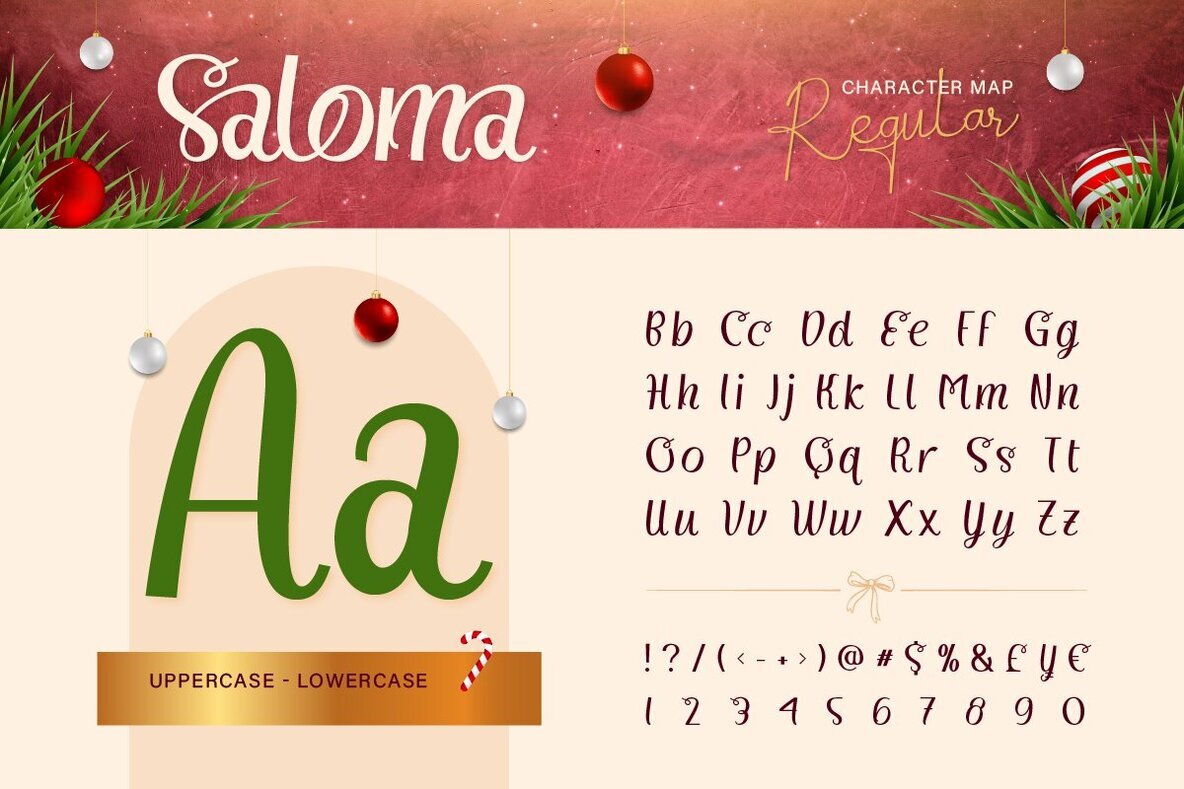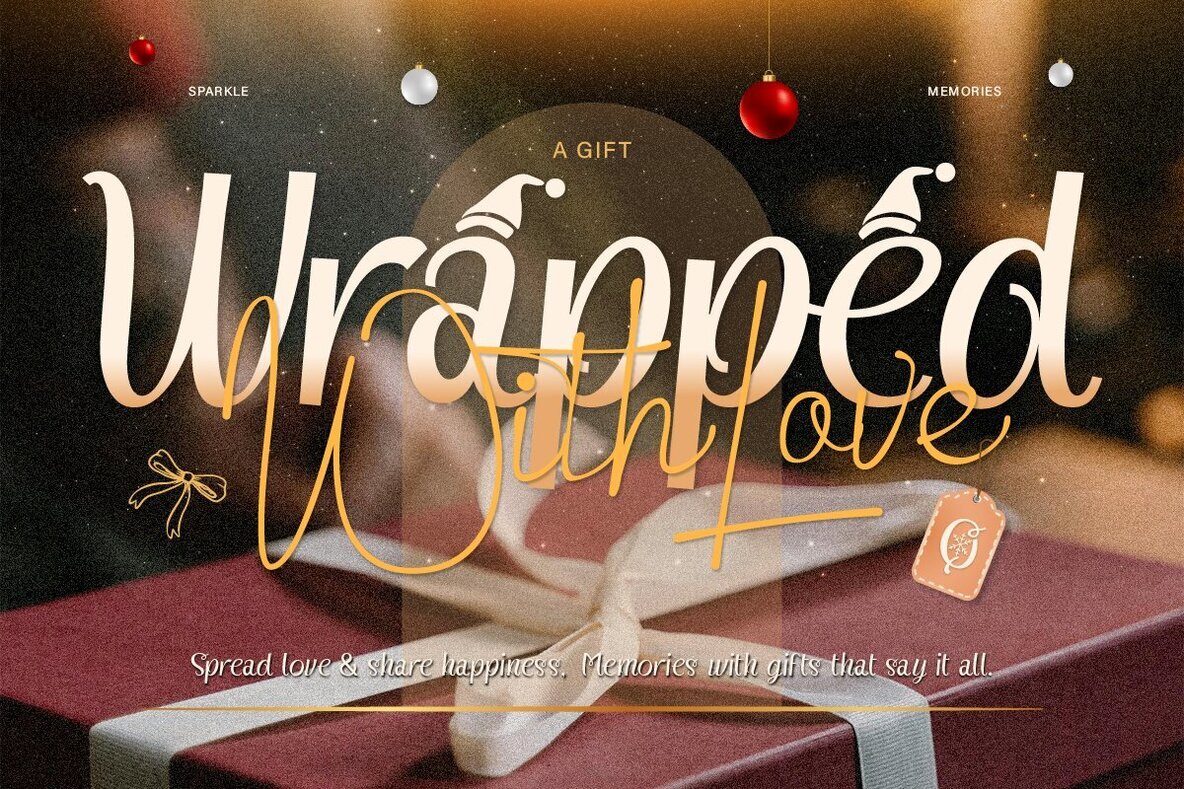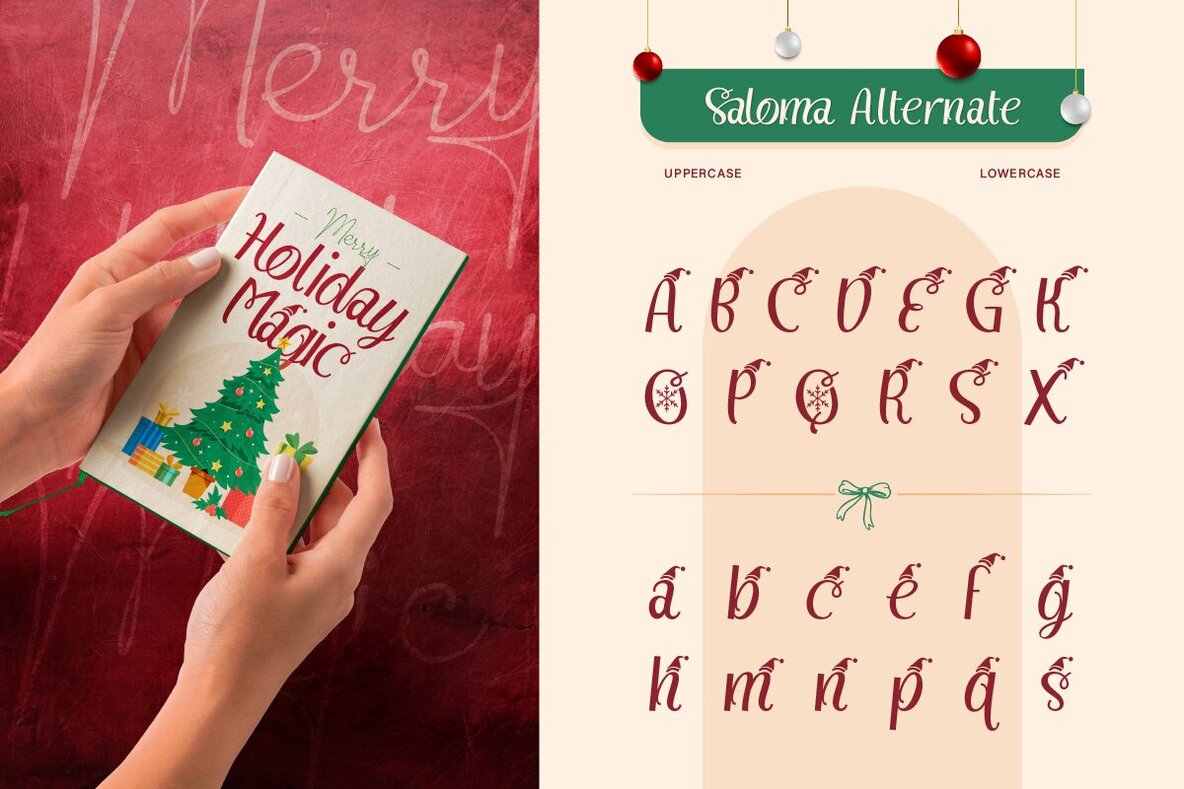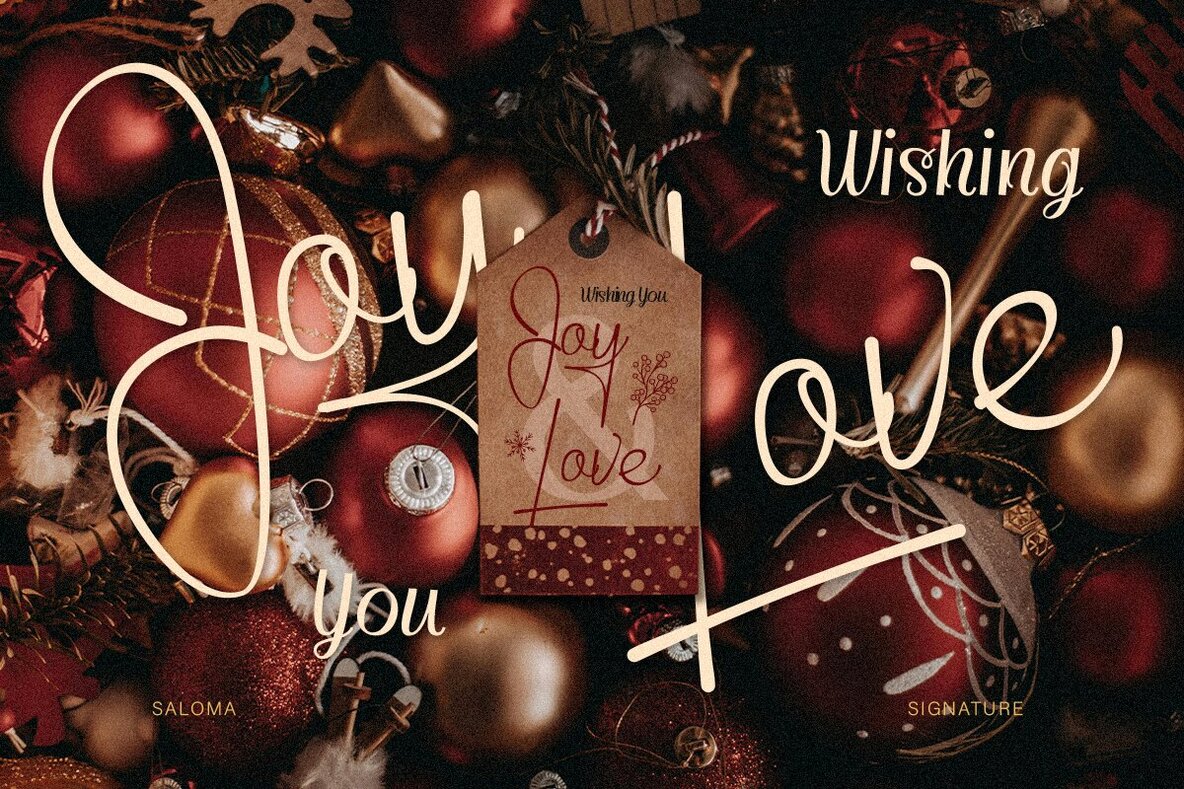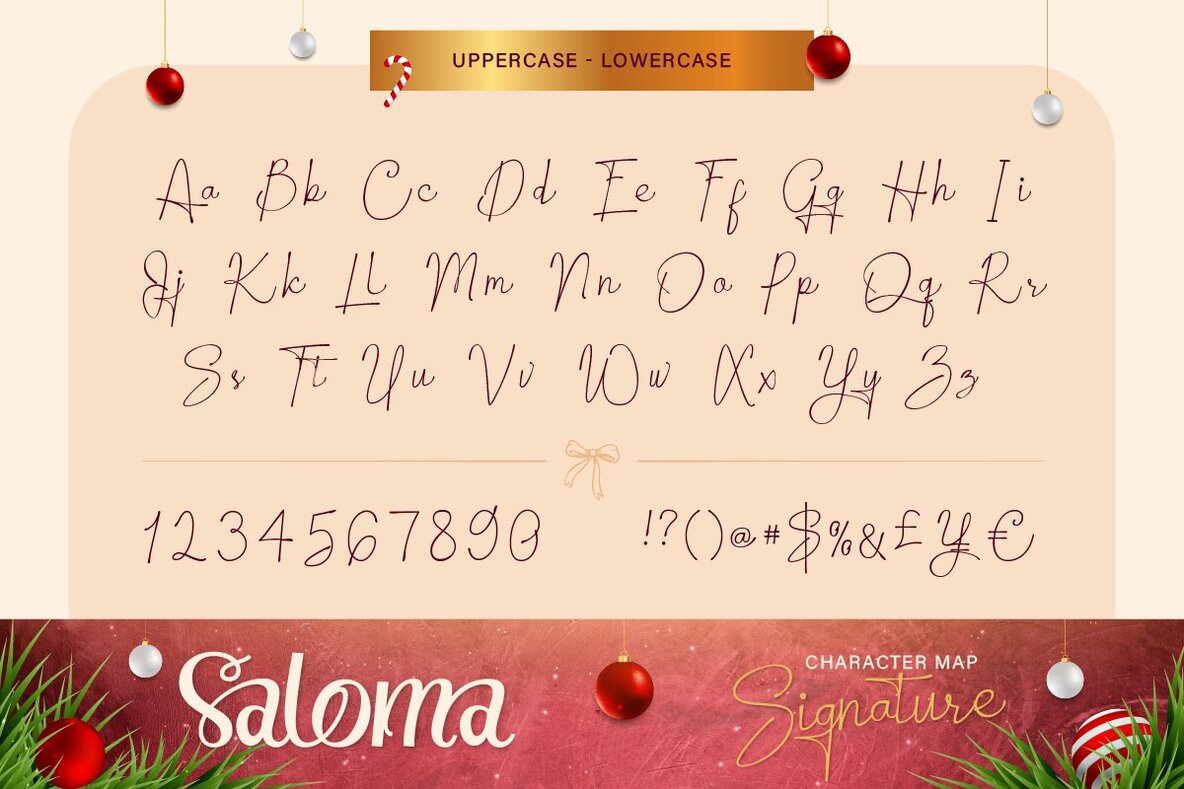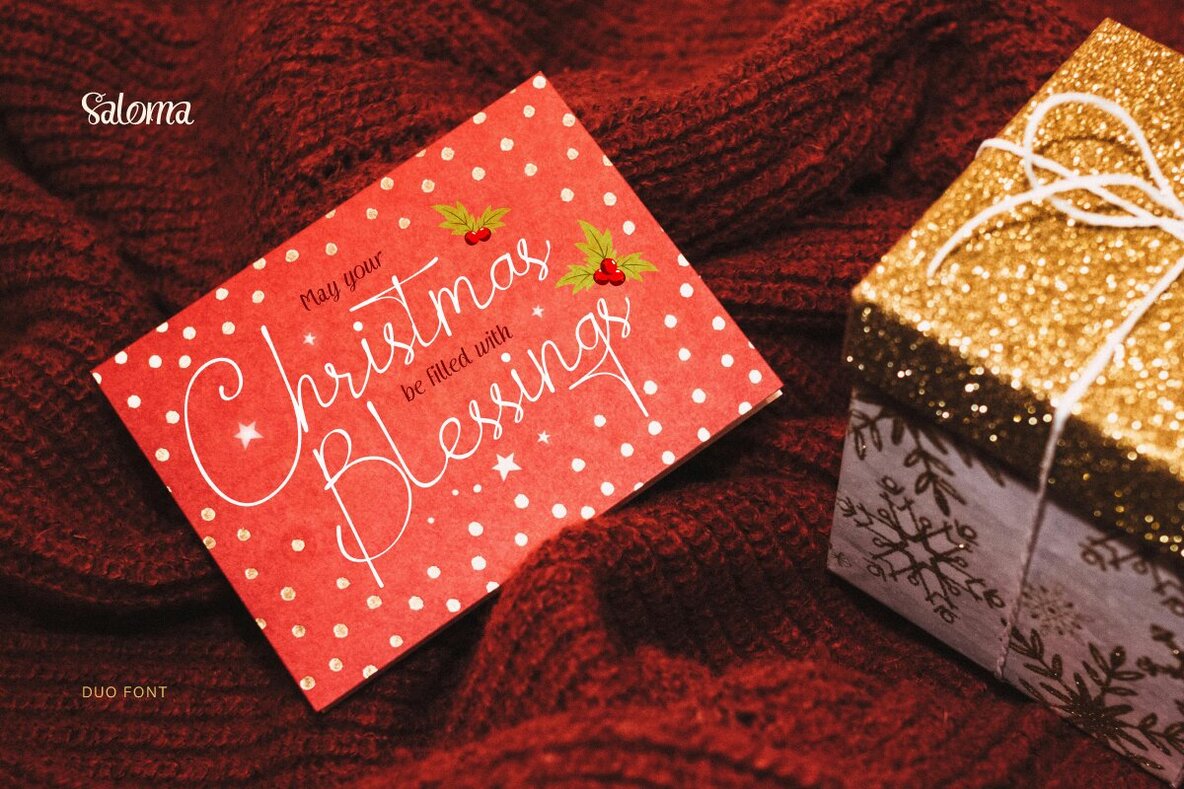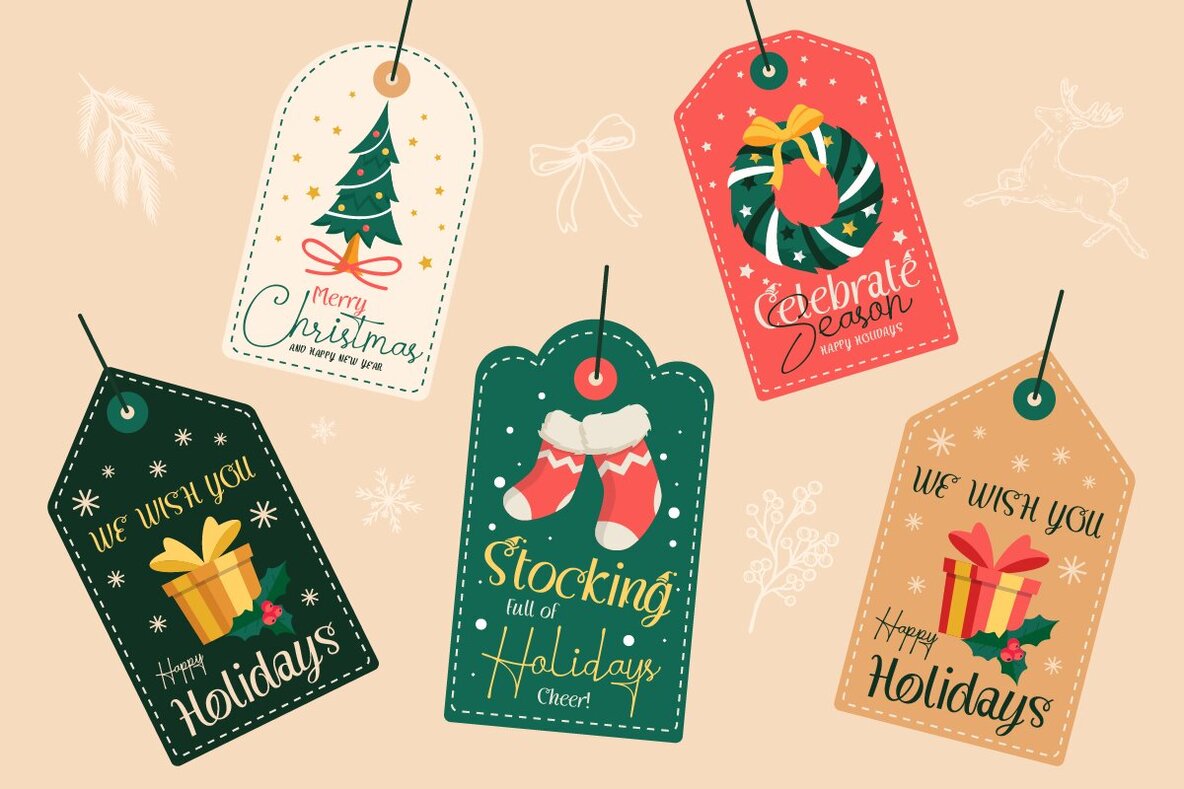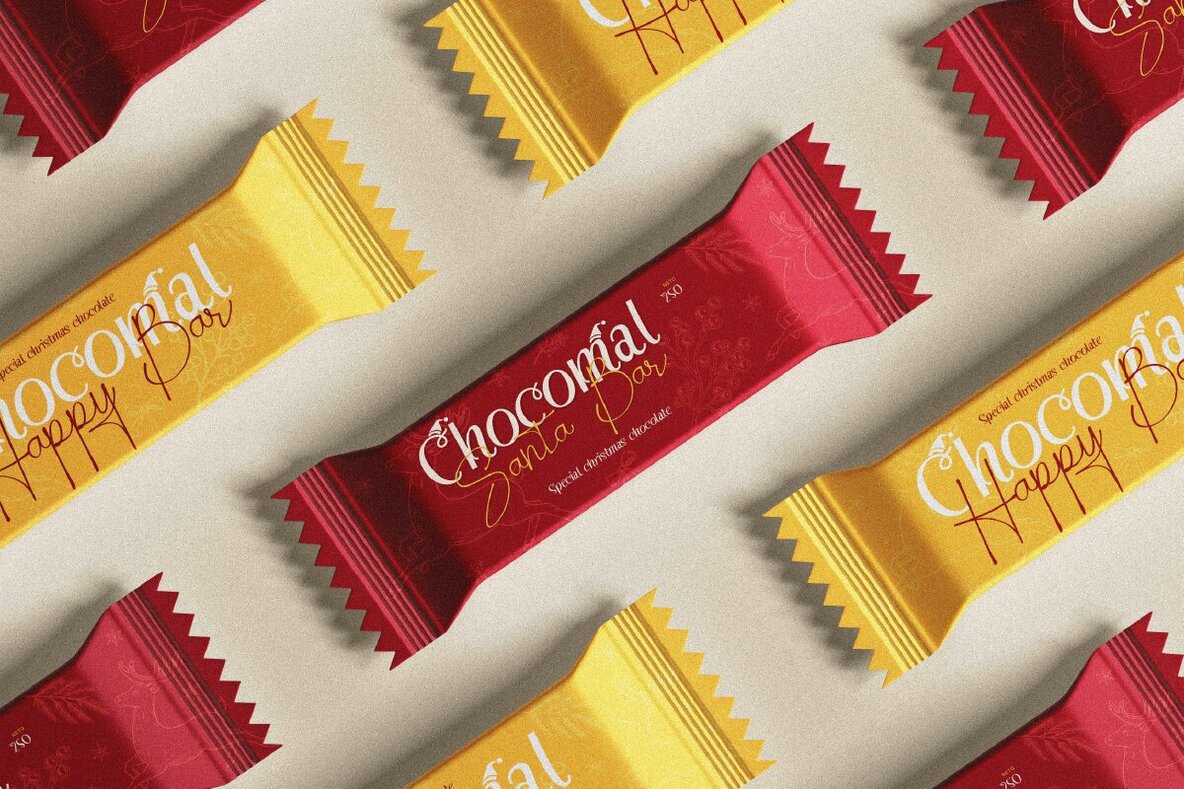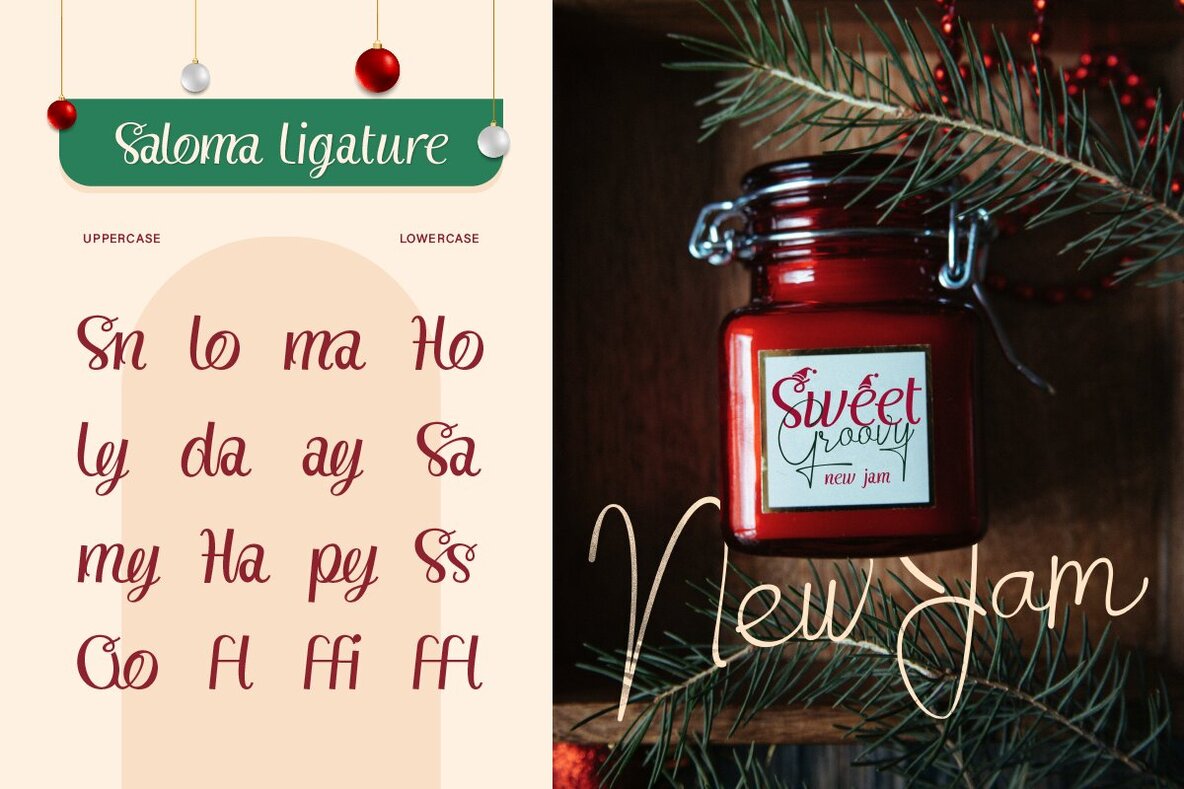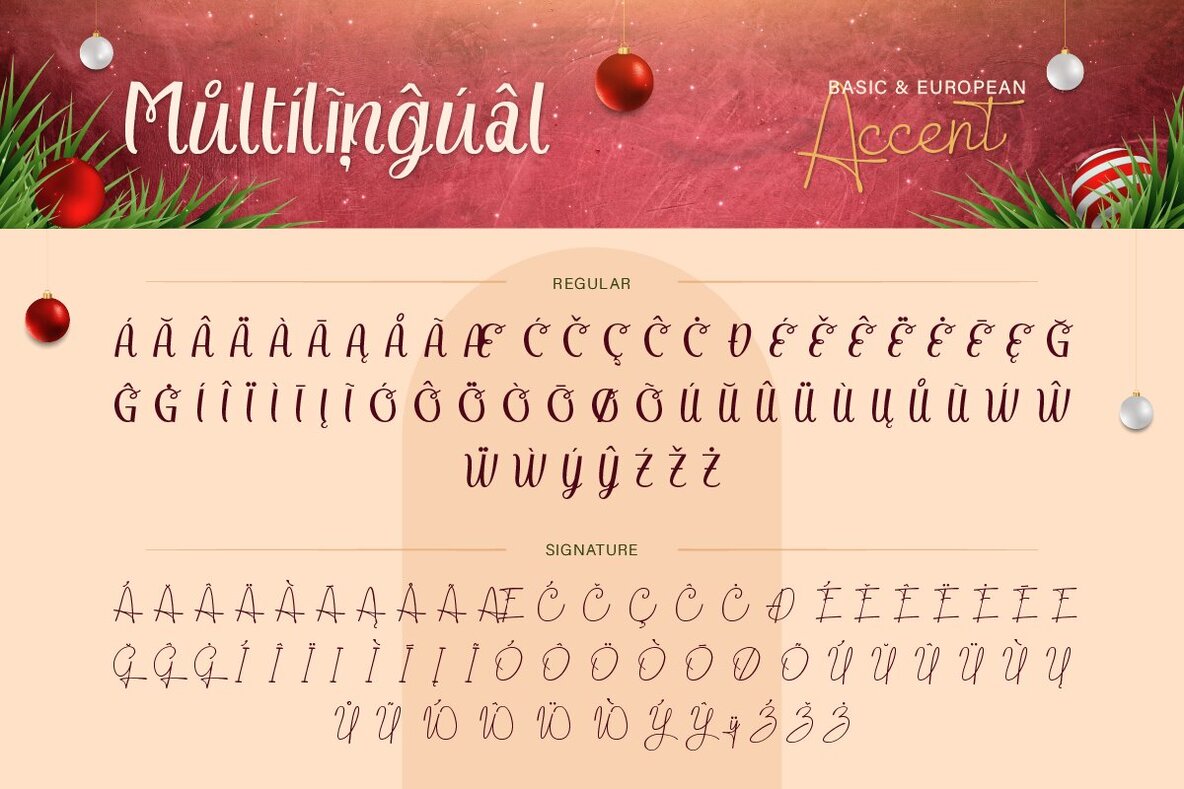
Saloma Signature Font
Saloma Regular
Saloma Signature
Saloma Signature combines elegant script with a playful touch, making it an ideal font choice for the holiday season. With its flowing curves and delicate details, this duo font adds a festive and joyful look to your designs. It perfectly complements projects like invitations, greeting cards, and social media content, infusing them with warmth and creativity.
Saloma Signature provides a comprehensive array of features, including a full A-Z character set in both uppercase and lowercase. It also supports numbers, punctuation, and offers alternates and ligatures to enable distinctive designs. Additionally, this font supports multilingual characters, ensuring a wide range of usability. Create unique and engaging designs with the charming Saloma Signature.